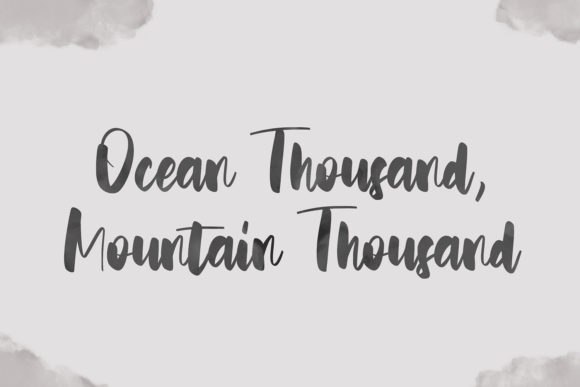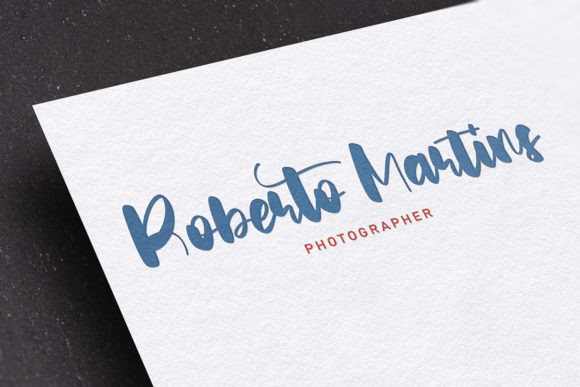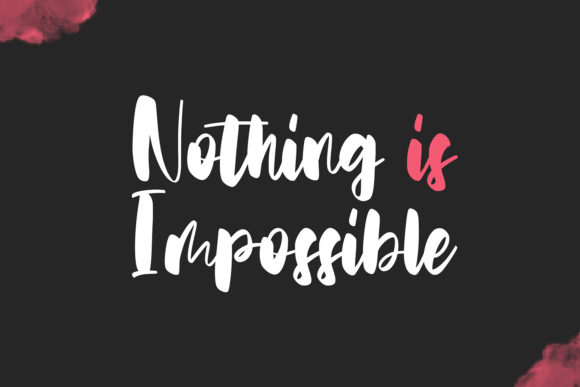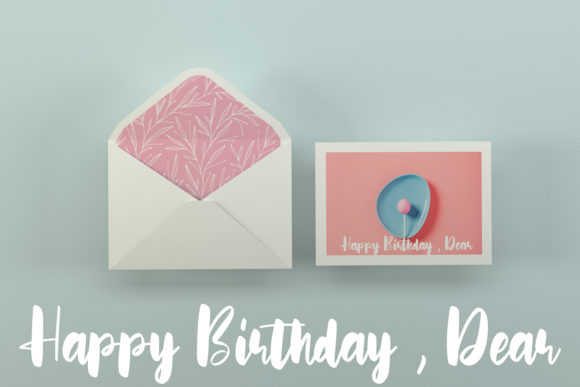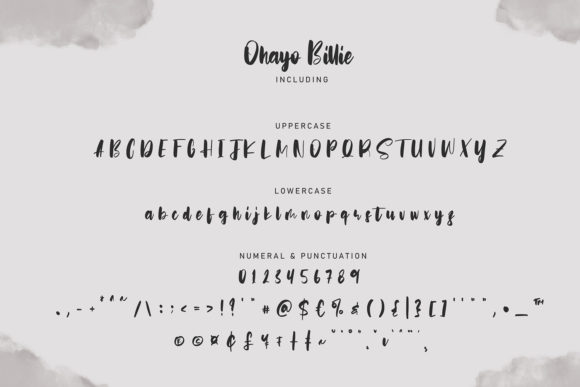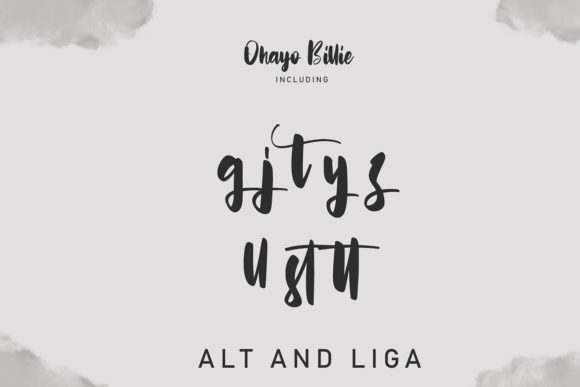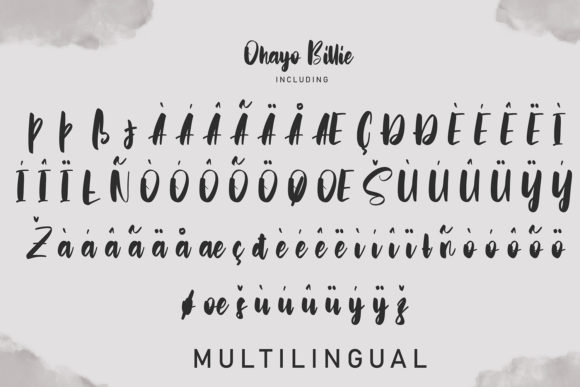
Ohayo Billie Font
About Ohayo Billie Font
Ohayo Billie is a relaxed handwritten font. Its casual charm makes it appear wonderfully down-to-earth, readable and, ultimately, incredibly versatile. Ohayo Billie will look outstanding in any context, whether it’s being used on busy backgrounds or as a standalone headline!